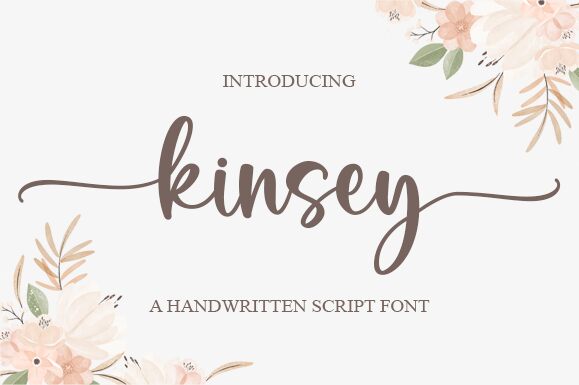
Kinsey, the semi-light calligraphy font designed by Graphix Line Studio, brings a touch of elegance and sophistication to any project. Its delicate curves and flowing strokes make it perfect for wedding invitations, elegant branding materials, or any design that requires a touch of refinement. With its romantic feel, Kinsey is also ideal for creating beautiful typography art pieces and inspirational quotes. Whether used for print or digital media, this font will add a unique charm to your designs that will leave a lasting impression on your audience. Try Kinsey today and watch your designs come to life!